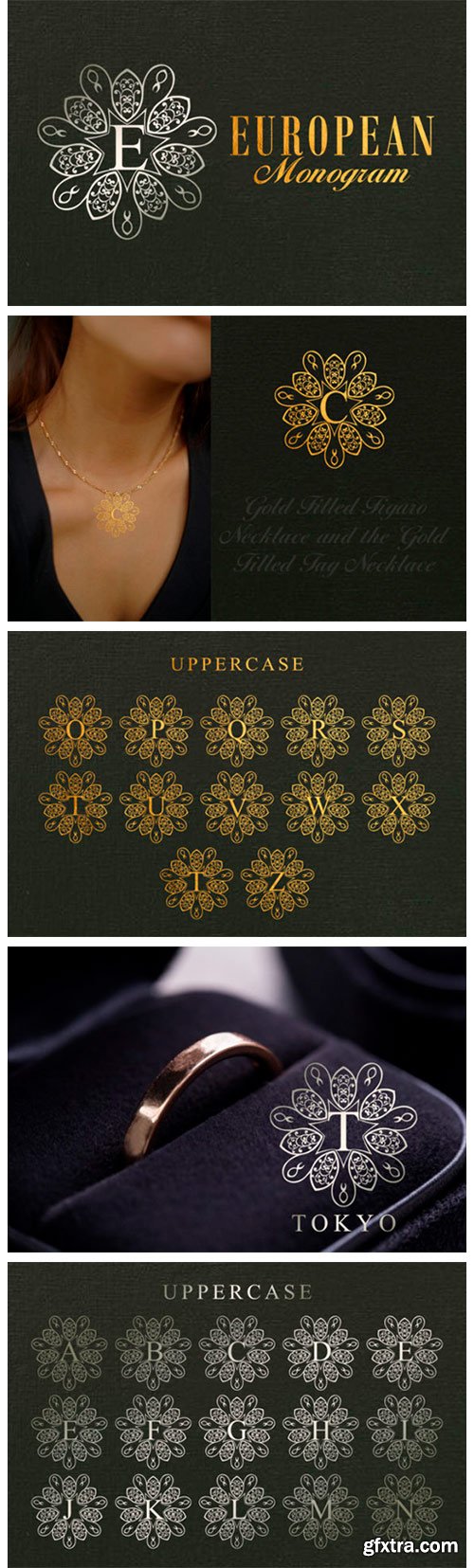
European Monogram Font
European Monogram is a beautiful decorative monogram font. It will add a romantic touch to each of your craft projects. Fall in love with its authentic feel and use it to create gorgeous wedding invitations, beautiful stationary art, eye-catching social media posts, and cute greeting cards.